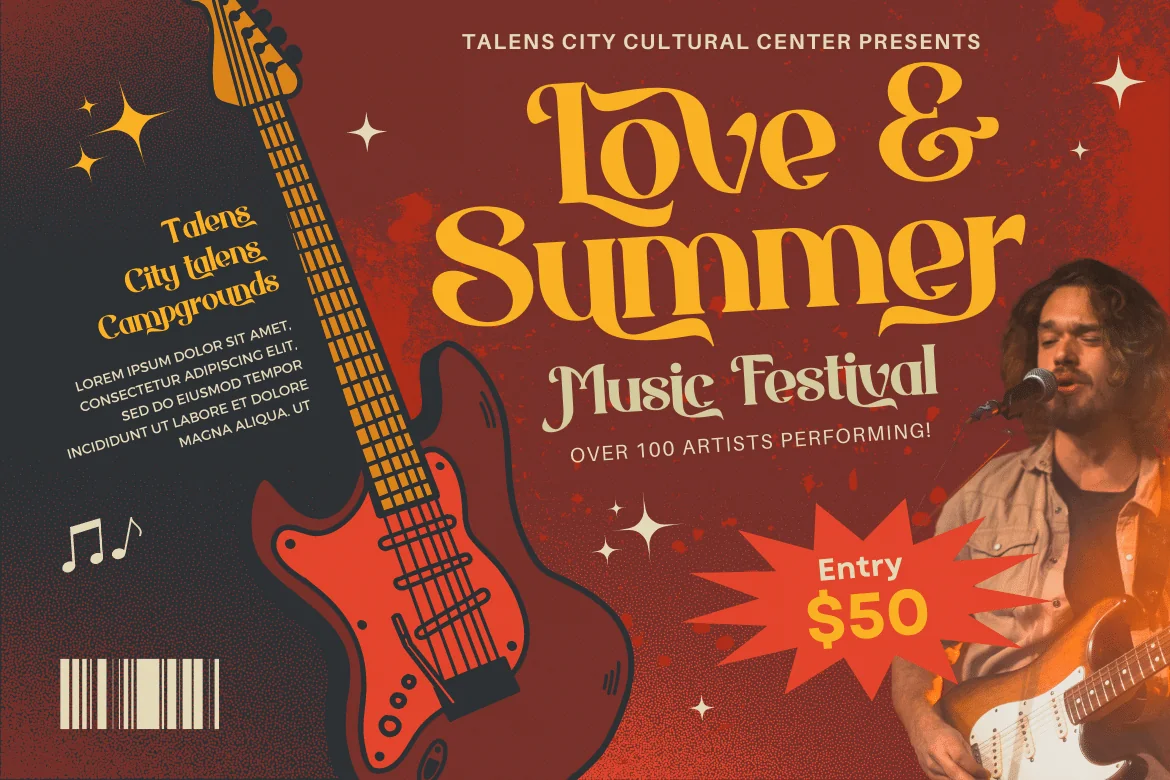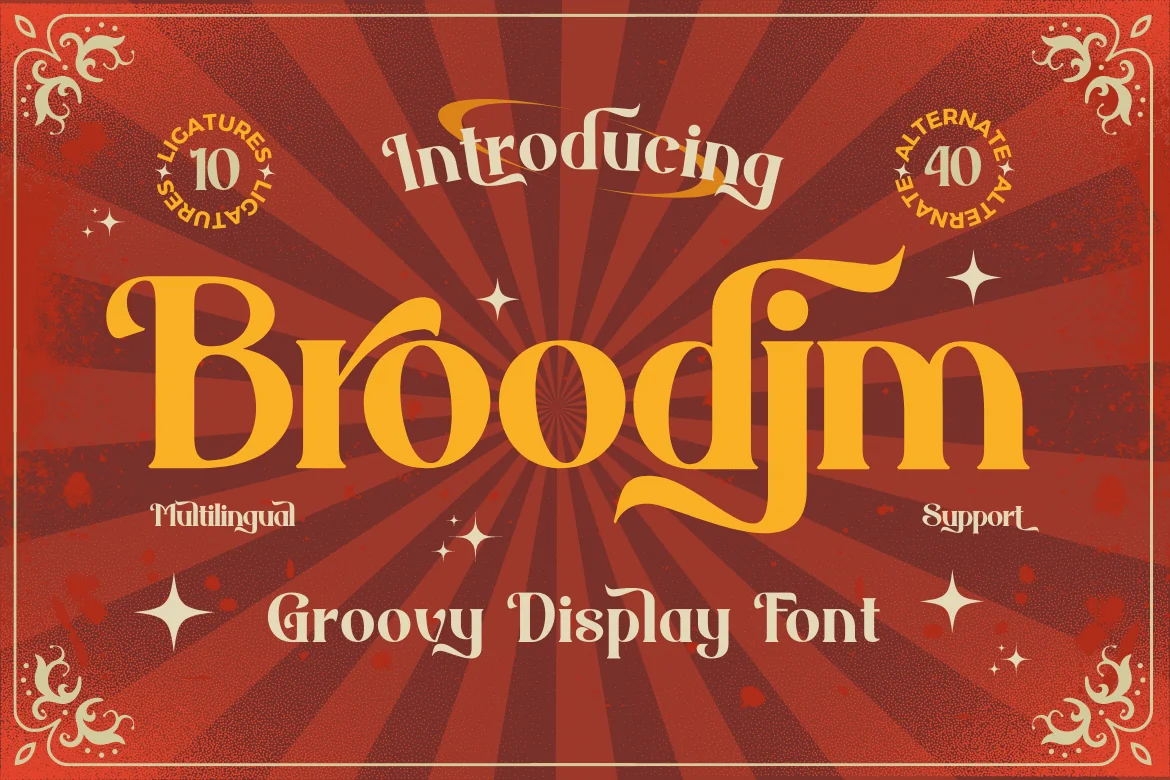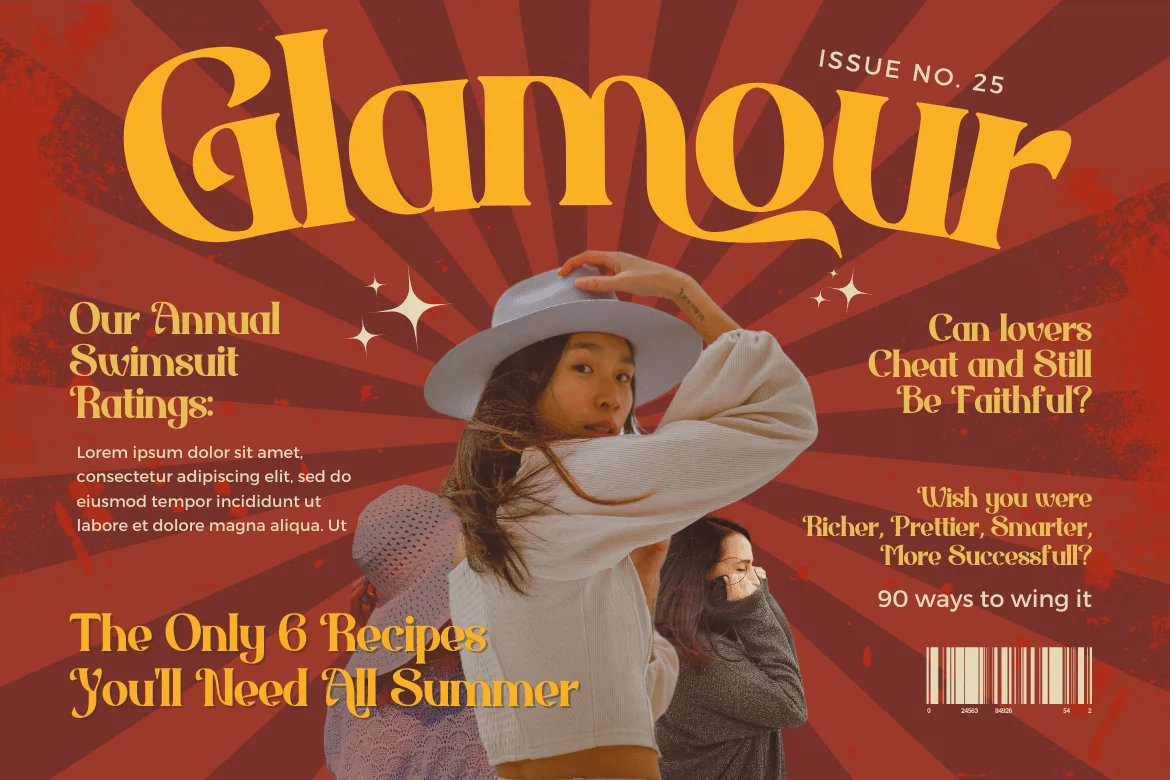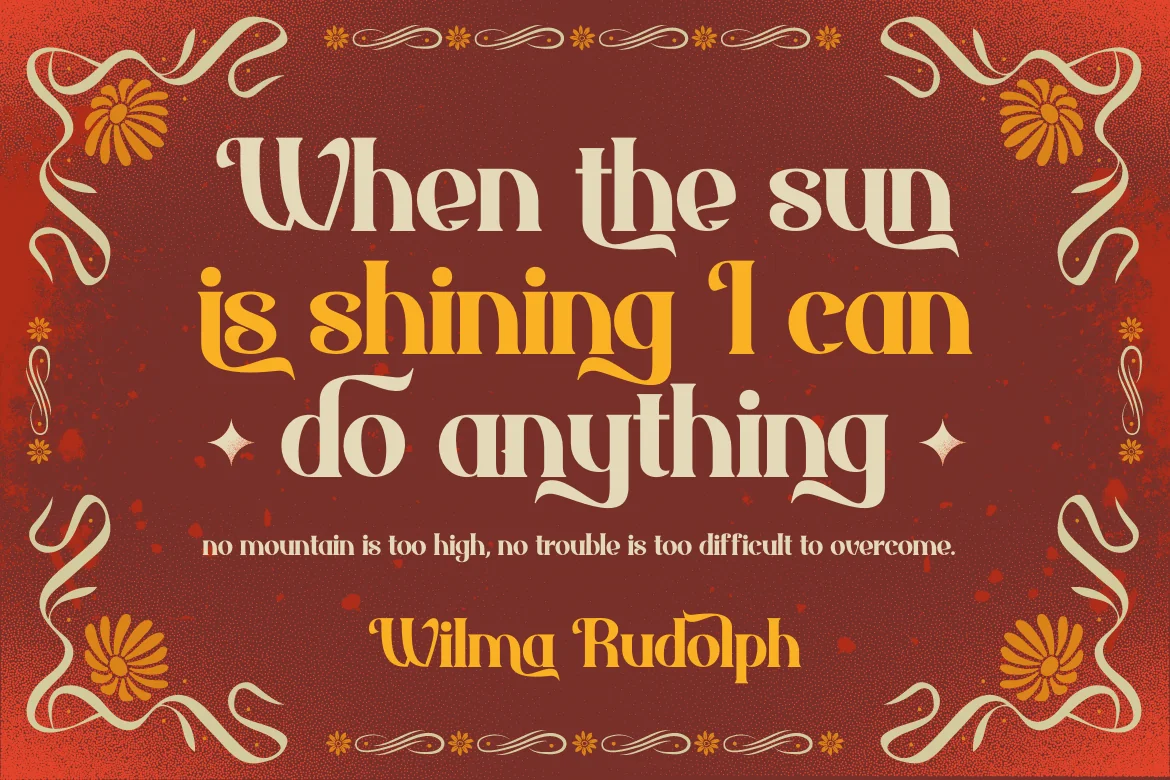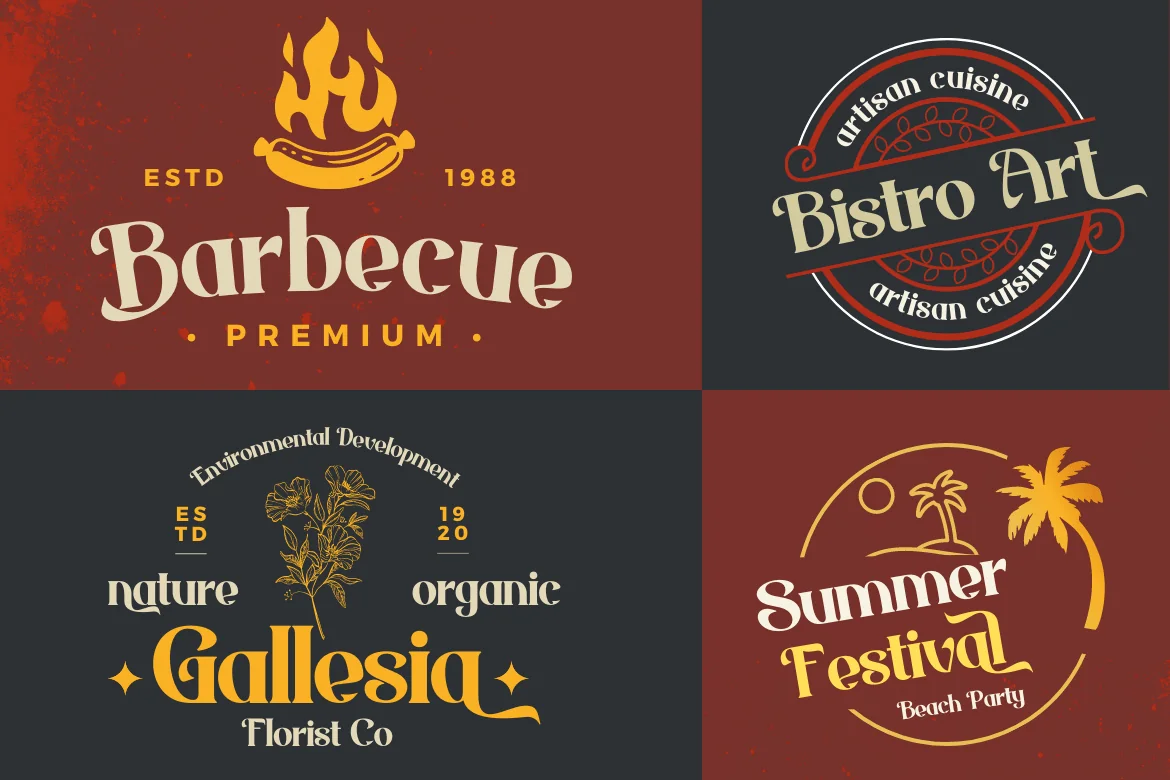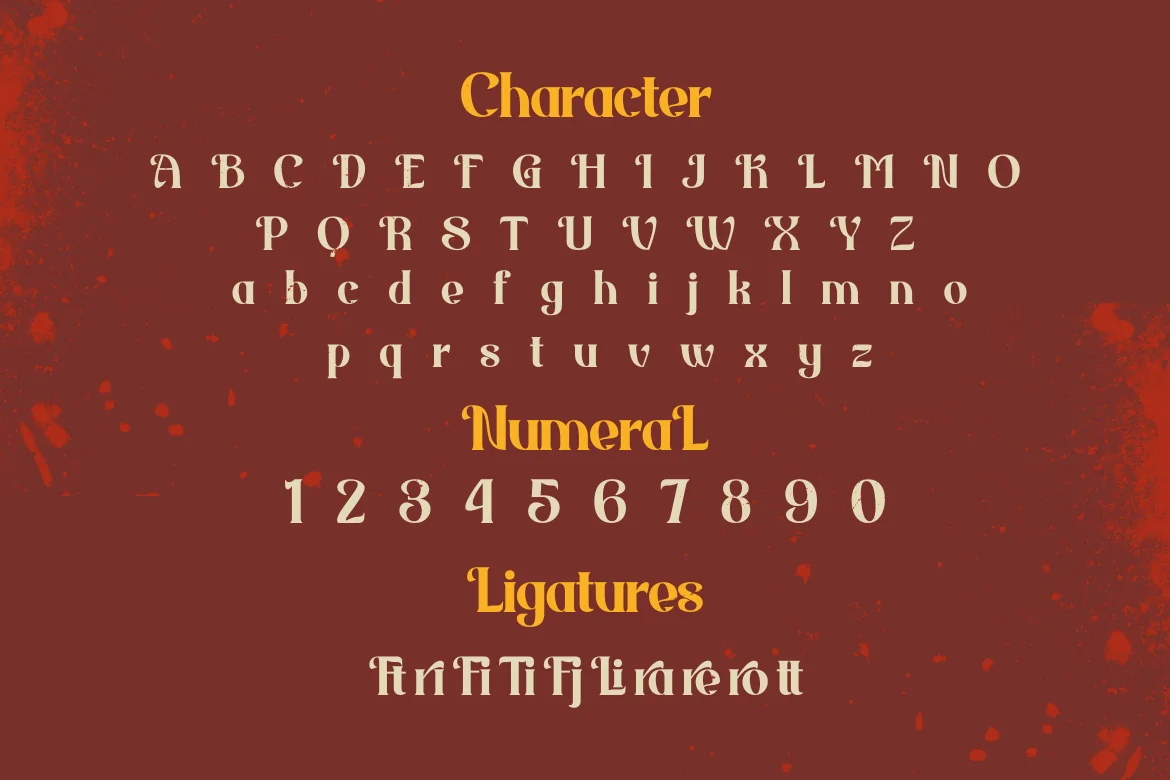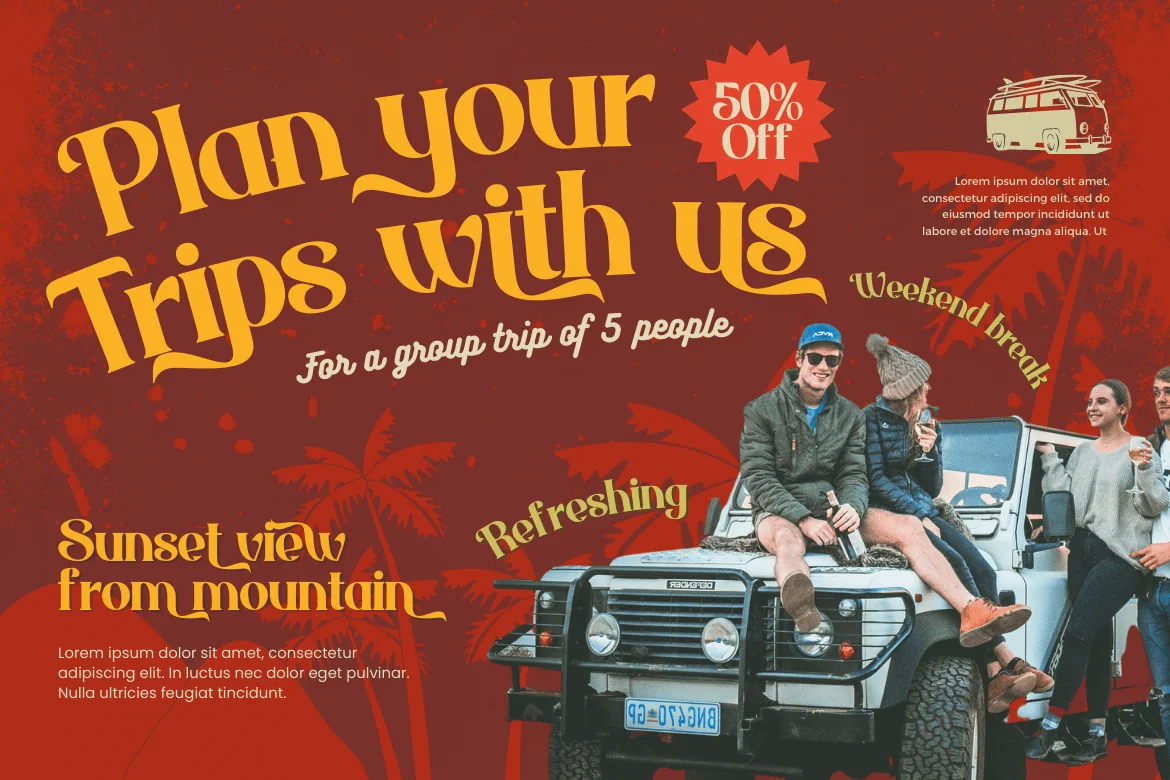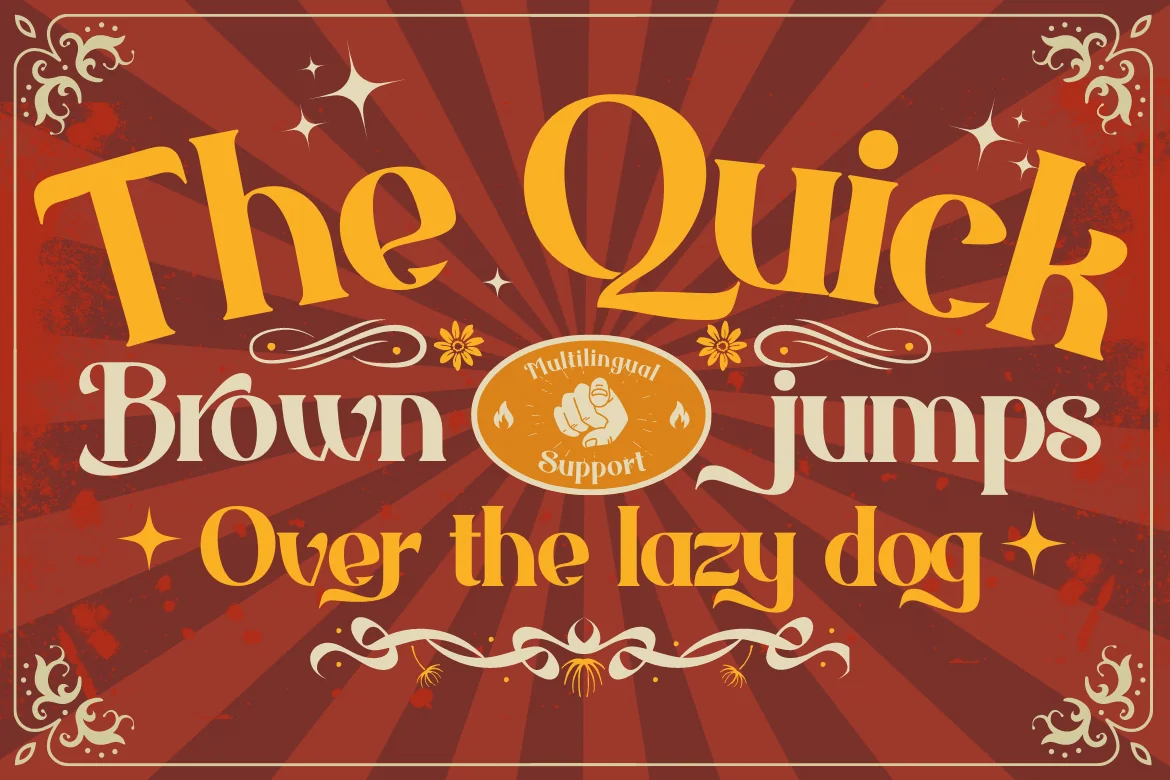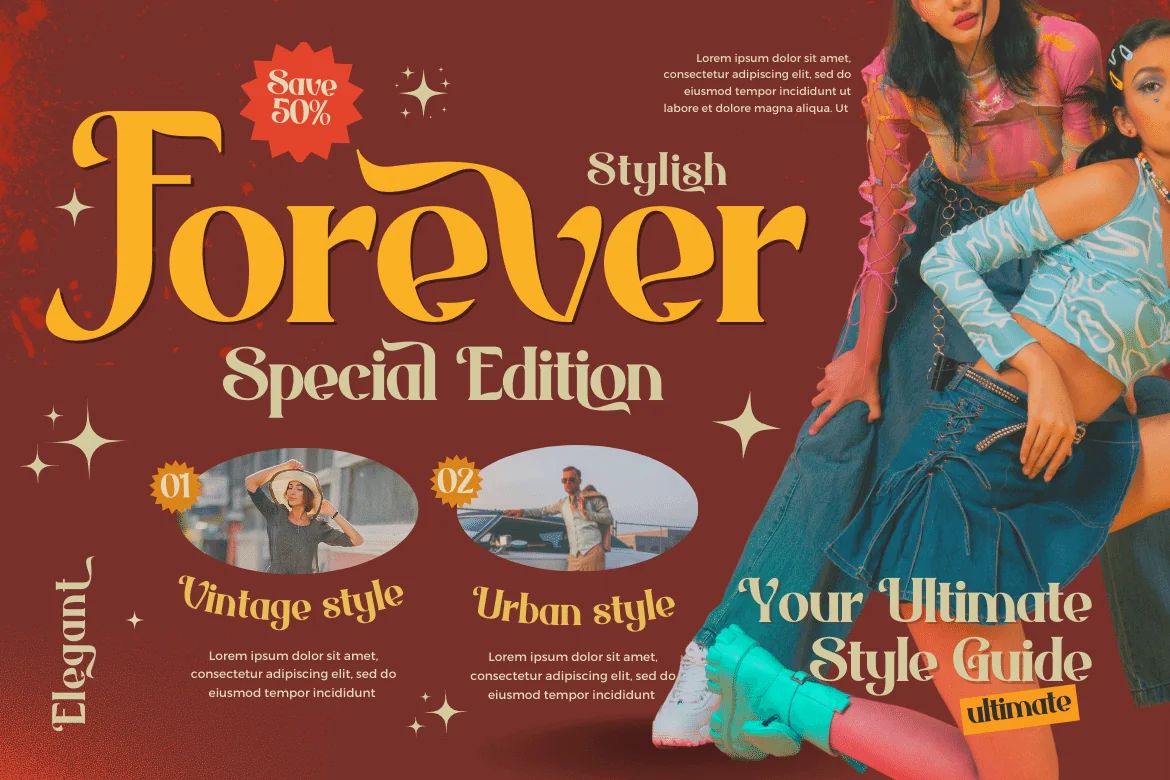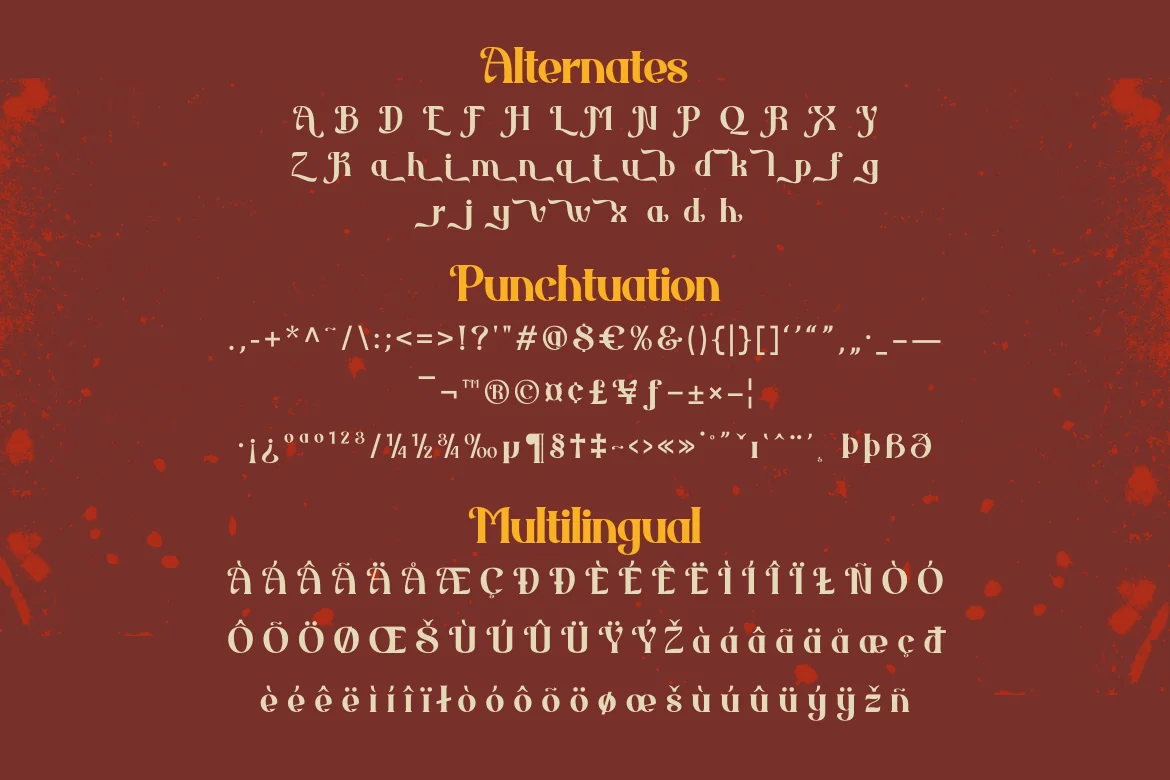
Broodim | Groovy Retro Font
The Broodim Groovy font is unique, stylish, and fun. Having an anatomical shape between thin and thick lines makes it beautiful and visually unique from most other fonts. Your project can be made more stunning by adding this font. Not only that, but this font also features cool alternative letters and ligatures to add a unique flair to your projects. Make the most of your designs by using this font today.